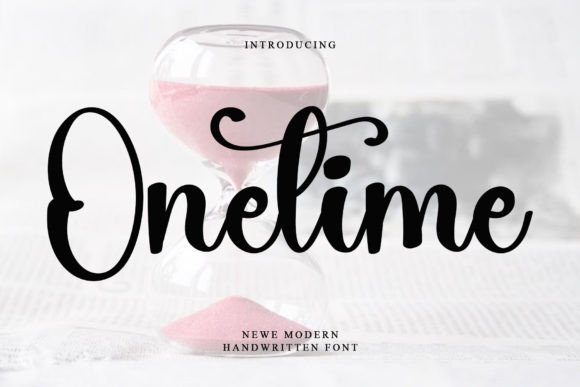
Introducing Onetime Font: A Timeless Masterpiece for Unforgettable Typography
Are you seeking a font that oozes elegance, sophistication, and a touch of timeless charm? Look no further than Onetime Font, the epitome of contemporary calligraphy, meticulously crafted by the visionary artists at Inermedia STUDIO.
Onetime Font is a script font family that exudes an aura of timeless beauty, inspired by the enduring legacy of classic calligraphy. Its carefully balanced and varied design is a testament to the artistry and attention to detail that went into its creation. This font is designed to elevate your projects to new heights, transforming them into masterpieces that captivate and inspire.
With Onetime Font, you have a versatile tool that can effortlessly adapt to a wide range of design projects. Its graceful curves and elegant flourishes lend themselves perfectly to wedding invitations, branding materials, social media graphics, and any project where a touch of sophistication is desired.
Onetime Font comes with a wealth of features that make it a joy to use. Its PUA encoding ensures easy access to a treasure trove of stunning glyphs and ligatures, allowing you to add intricate details and embellishments to your text. The font's multilingual support opens up a world of possibilities, catering to a global audience and allowing you to communicate your message in multiple languages.